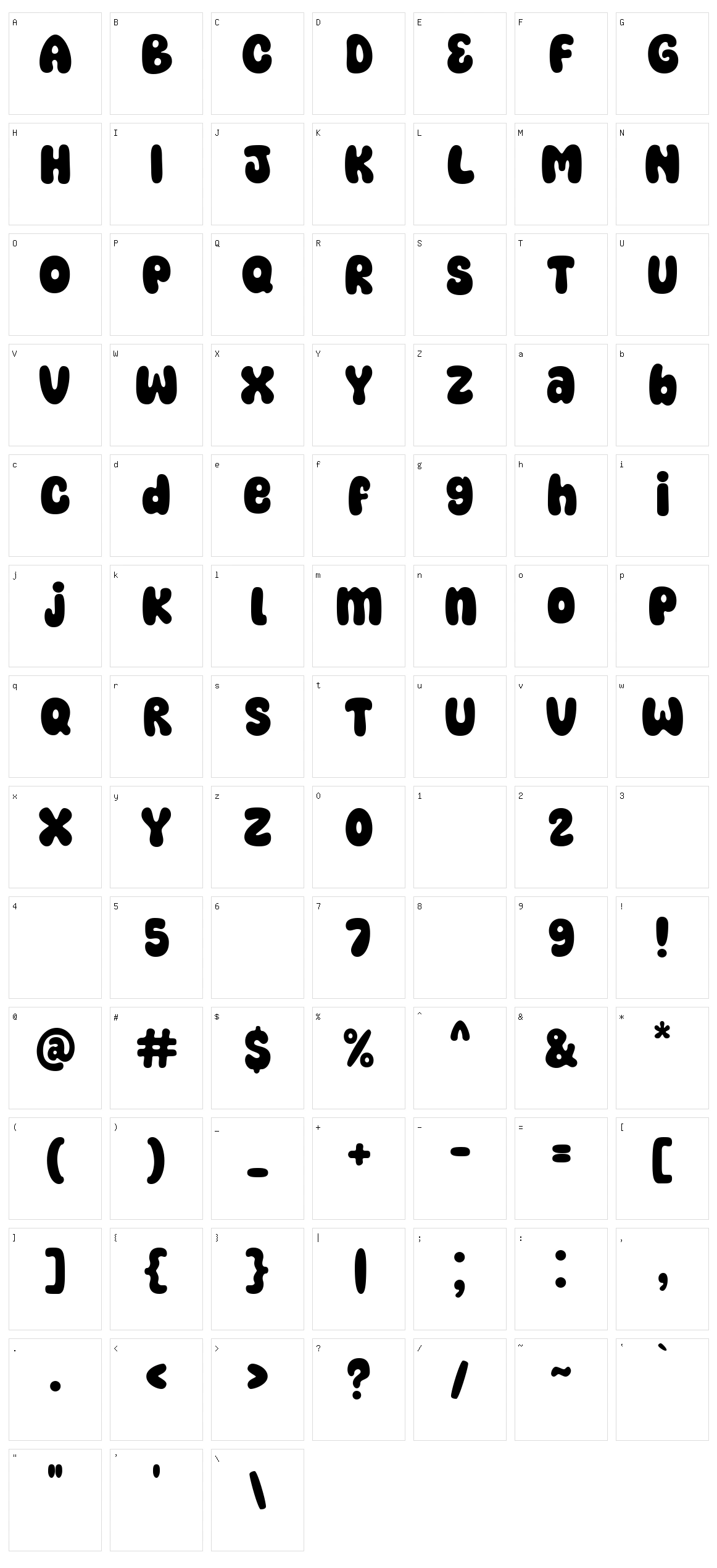
Introducing Super Happy: A Font Overflowing with Joy!
Imagine a font that bursts with sunshine and sparkles with delight. That's Super Happy! This exuberant typeface boasts playful, round curves and a bubbly personality that's guaranteed to bring a smile to your face.